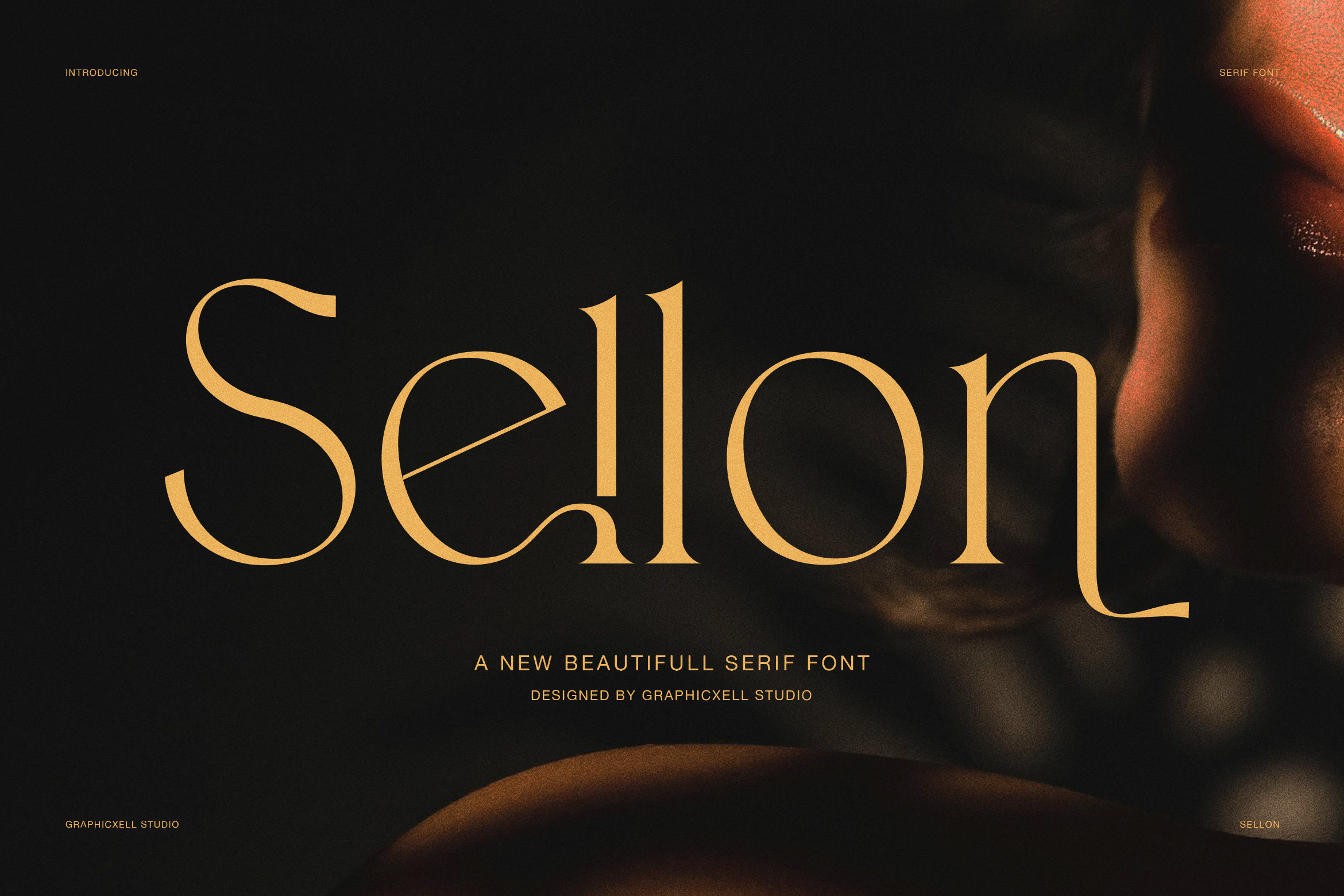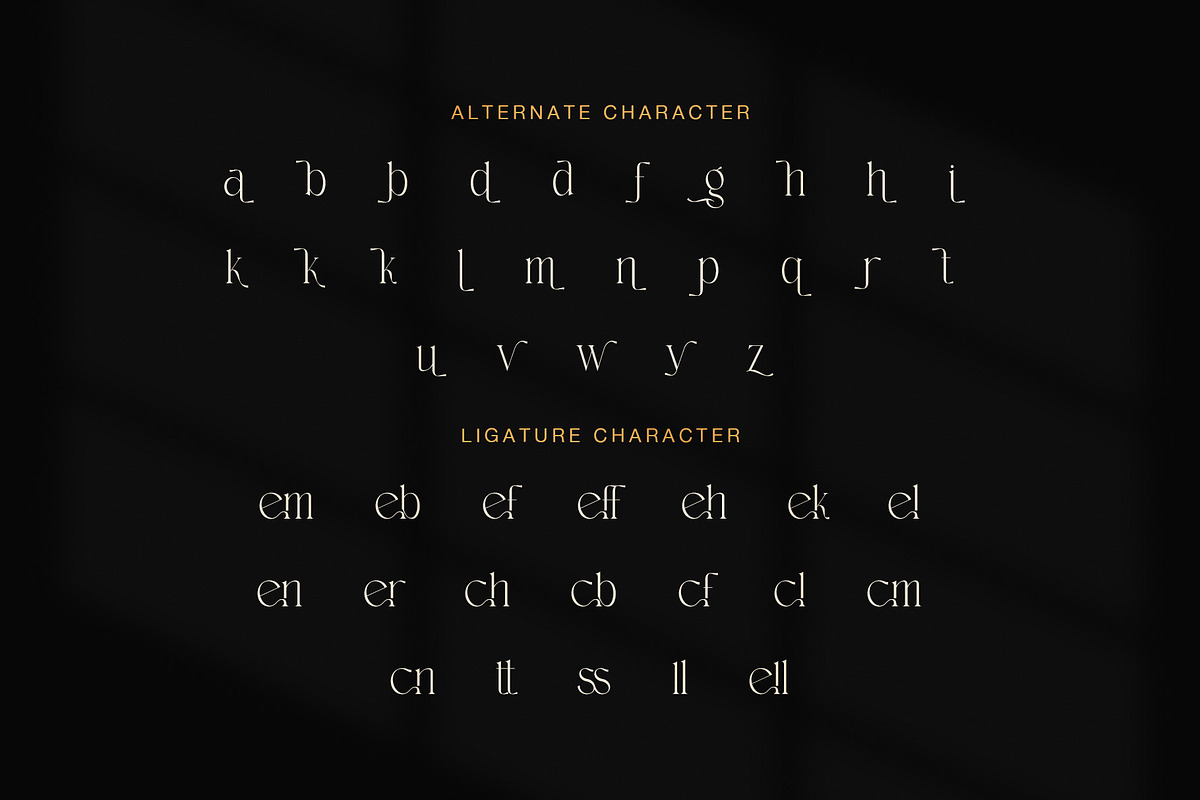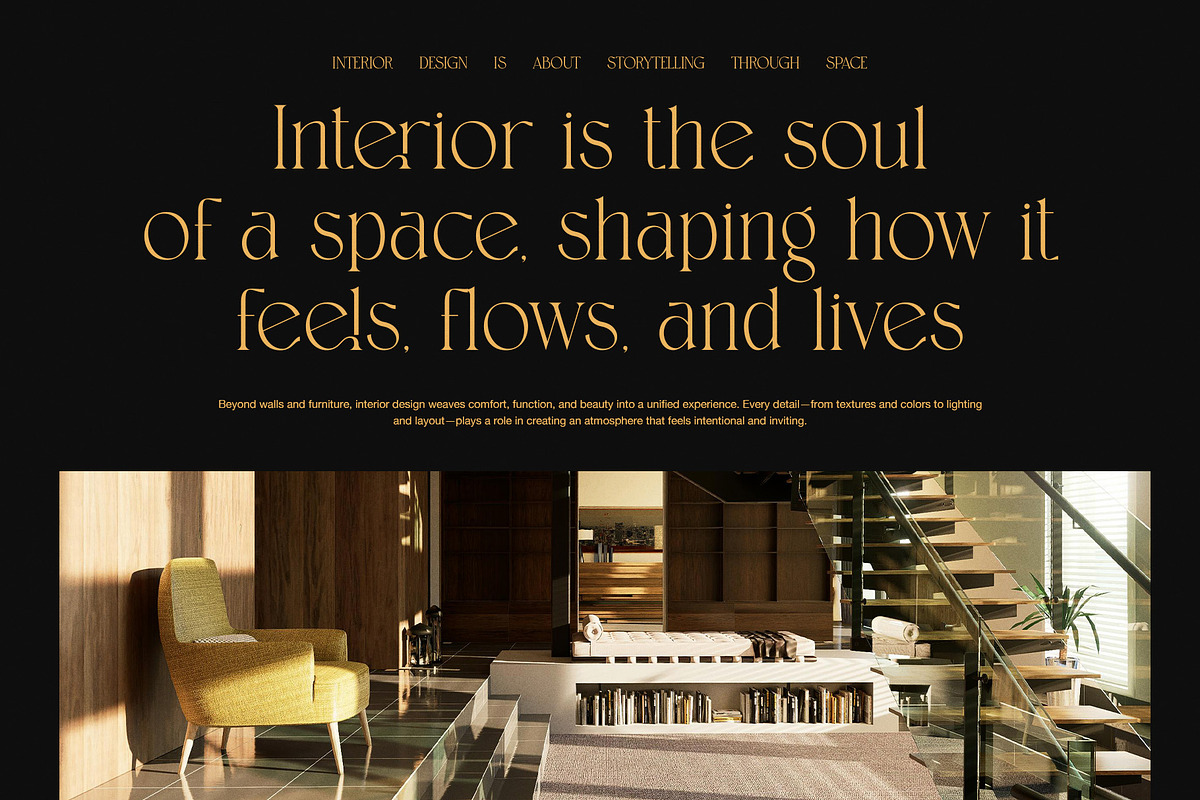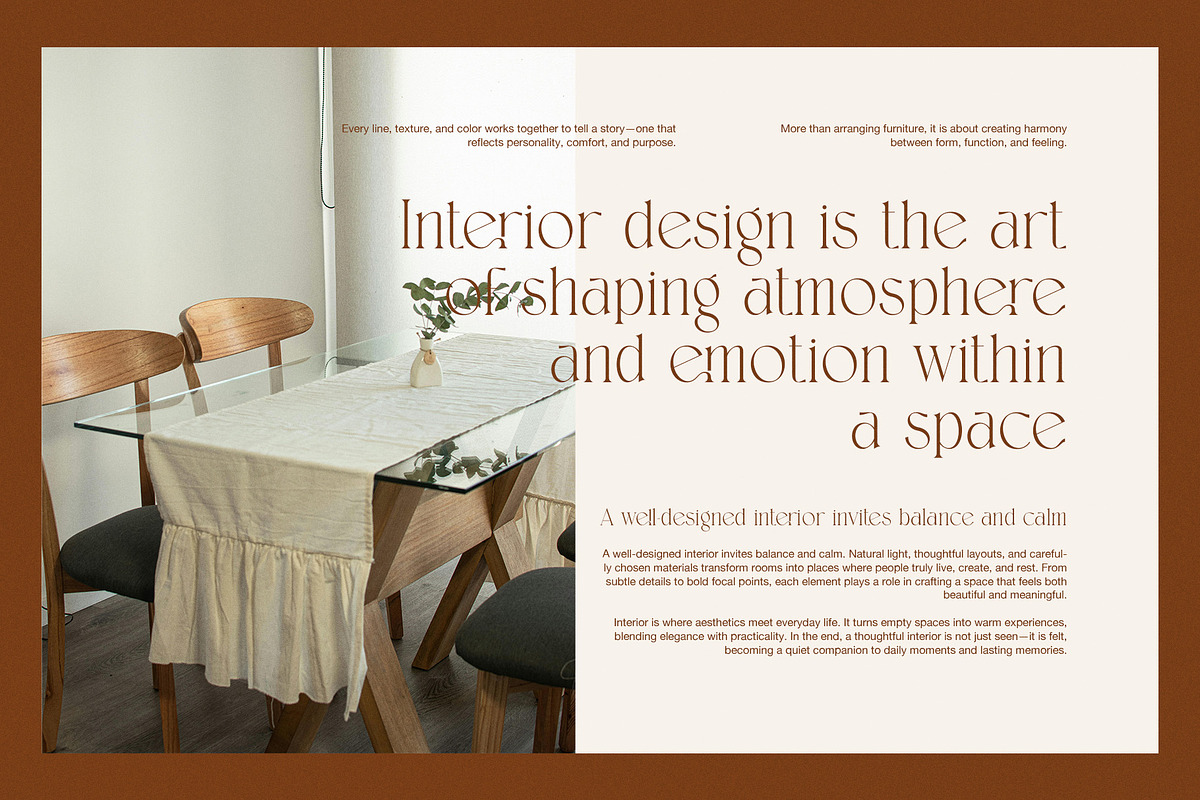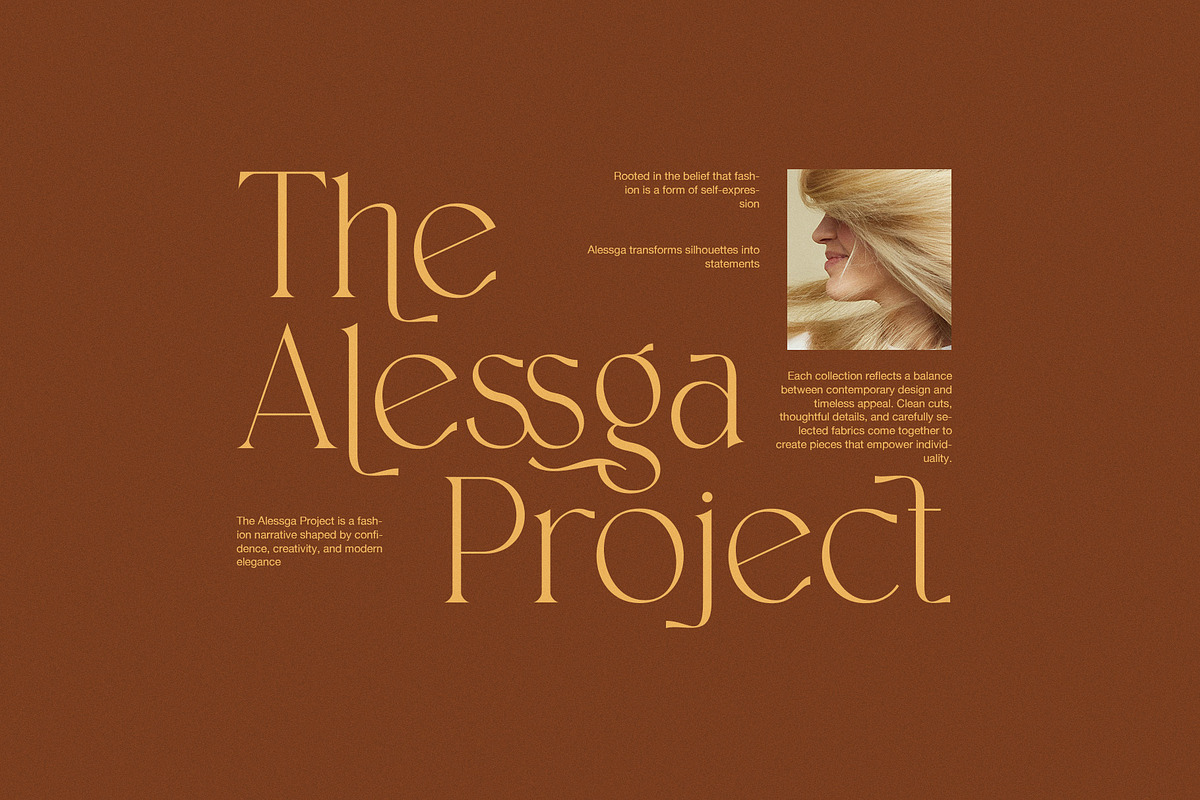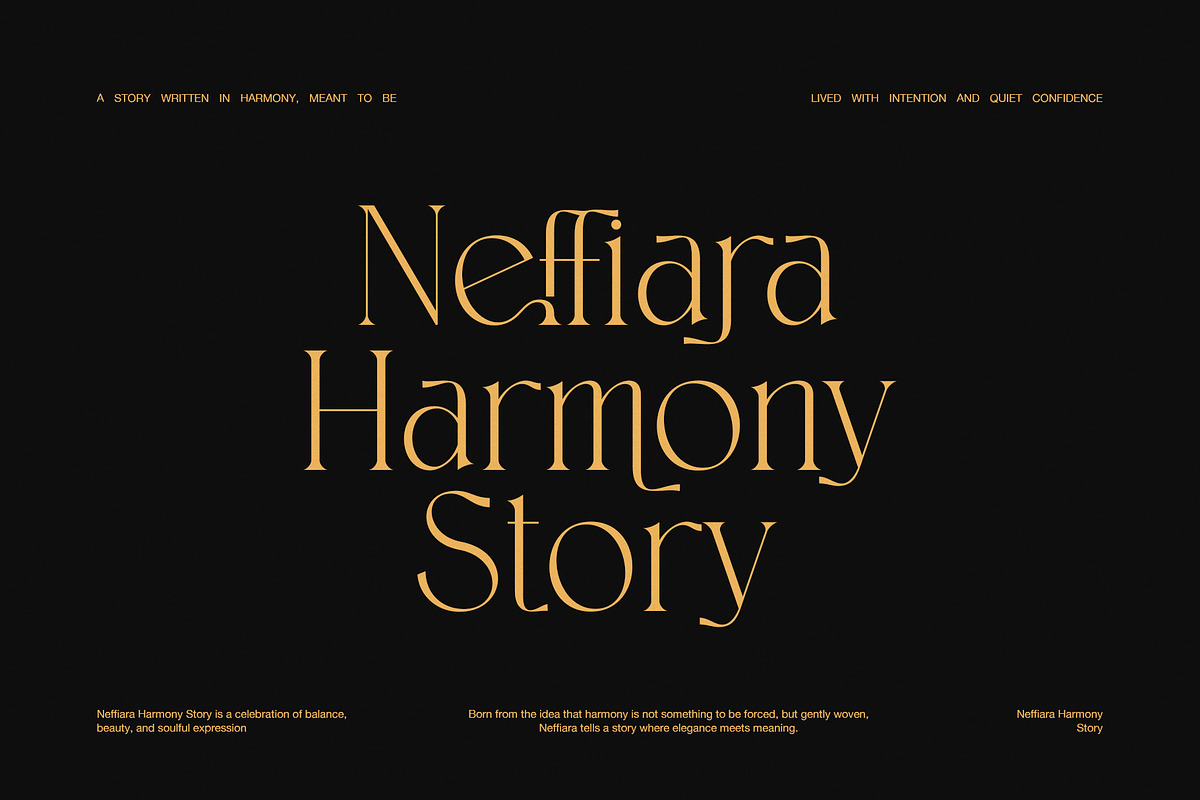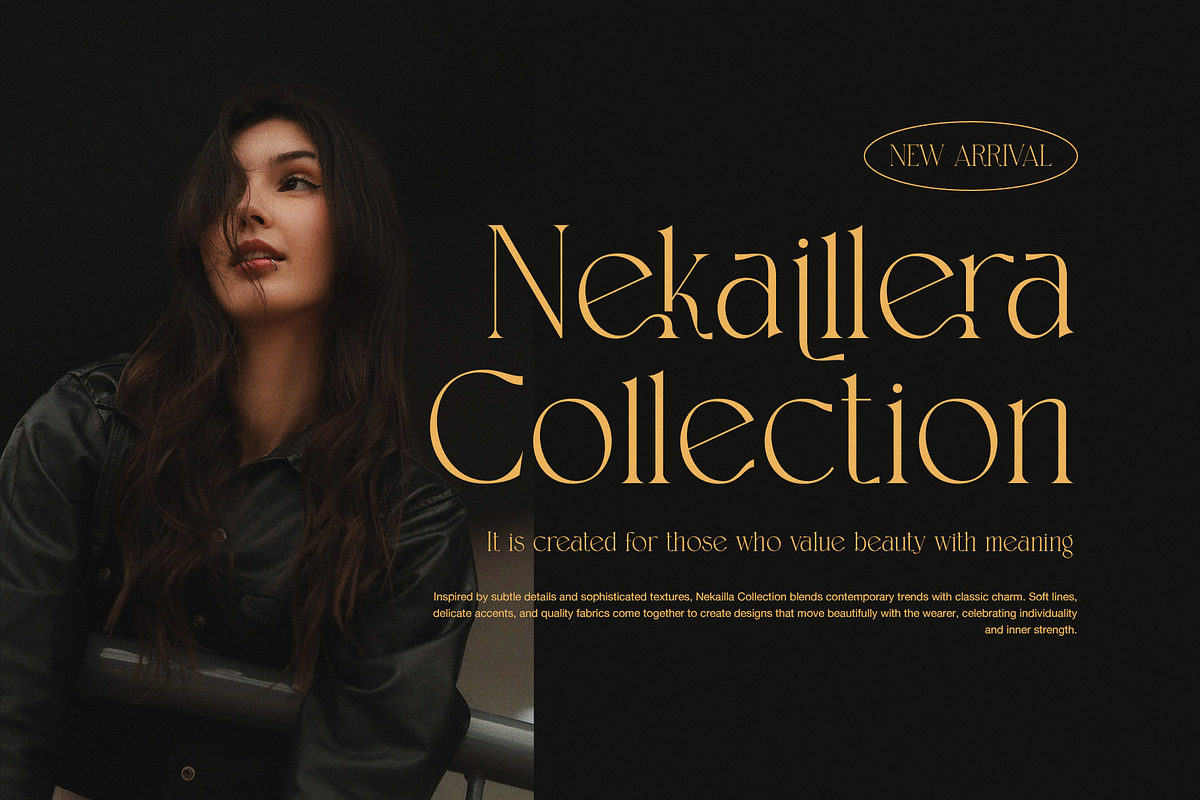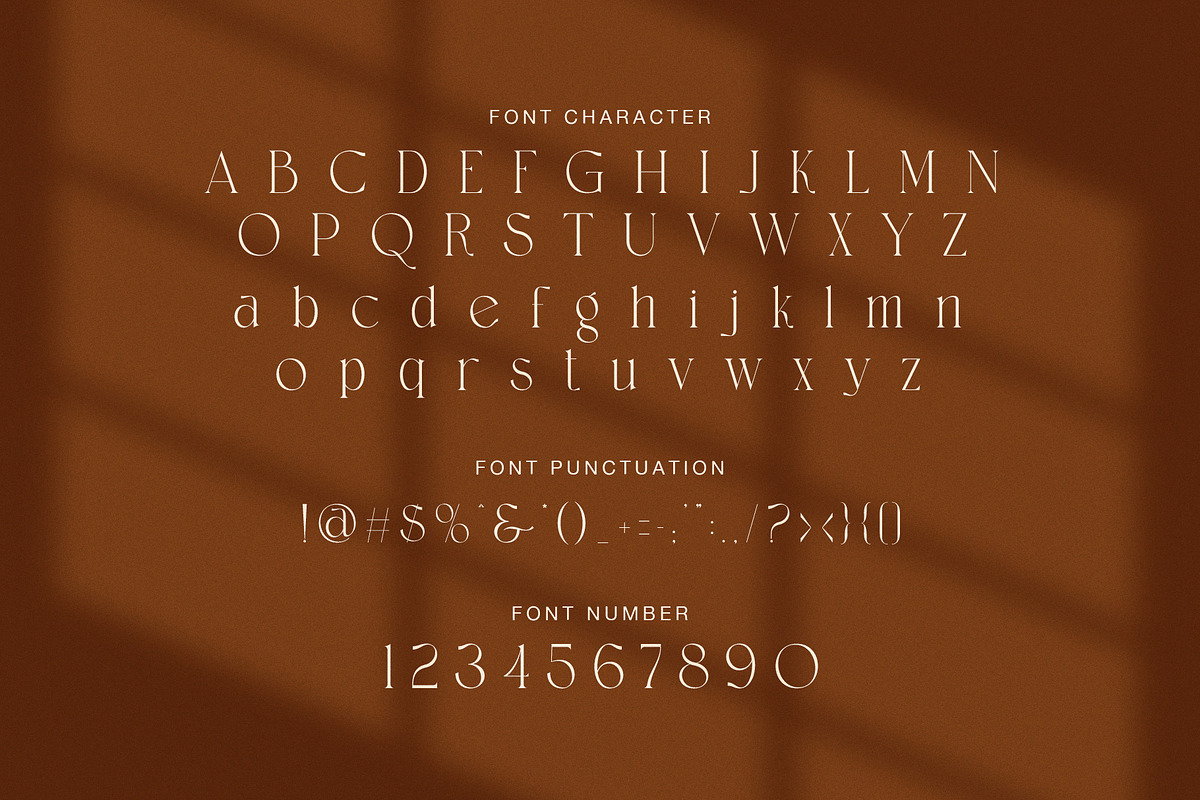
Sellon Elegant Serif Font
Sellon is an elegant serif font created for designers who value balance, clarity, and quiet confidence. Moreover, it blends classic serif structure with soft modern curves, so every word feels refined and intentional. Because of this harmony, Sellon works beautifully for luxury branding, editorial layouts, and thoughtful visual storytelling.
In addition, Sellon offers subtle alternate characters that add personality without overpowering the design. Therefore, headlines and brand names feel natural and graceful. At the same time, the main letterforms remain clean and readable, even in longer text. As a result, this font performs well in both display typography and supporting content.
Furthermore, Sellon fits a wide range of premium design fields. For example, it works perfectly for interior design studios, furniture brands, fashion labels, and lifestyle magazines. It also suits beauty campaigns, hotel branding, architecture presentations, and curated social media visuals. Since the contrast stays soft and controlled, layouts feel warm, calm, and professional.
Why designers choose Sellon
This serif font helps brands communicate elegance without excess. Also, it supports storytelling through typography, which makes designs feel meaningful.
Main features and benefits:
Elegant serif letterforms with modern balance
Subtle alternates for refined expression
Clean ligatures for smooth word flow
Soft contrast for calm luxury layouts
Strong uppercase for branding and titles
Balanced lowercase for readable text
Suitable for print and digital projects
deal for interior, fashion, and lifestyle design
Moreover, Sellon creates emotional space within a layout. Instead of loud details, it uses gentle rhythm and thoughtful spacing. Because of that, designs feel confident, timeless, and well composed.
Finally, if you need a serif font that feels modern, elegant, and versatile, Sellon offers a reliable solution. It enhances visual storytelling, strengthens brand identity, and adds lasting value to premium creative projects.